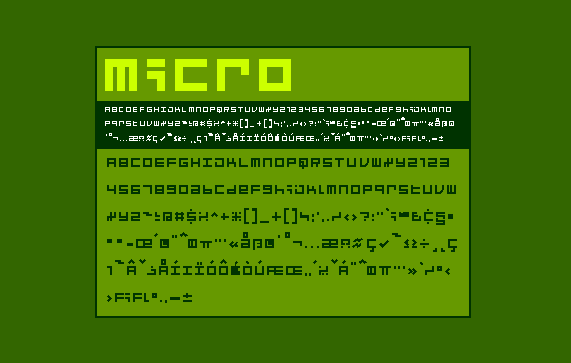
Micro
What's worse that waiting for two months for a new font? Waiting for an ugly font only made for Amiga computers. Well, you don't have to worry here. I decided to venture out into the world of alias text and see what happens. You can use this for smooth or not for smooth lettering, I don't care. Most of the letters scale pretty well and still retain some legibility. That is what I like to see.